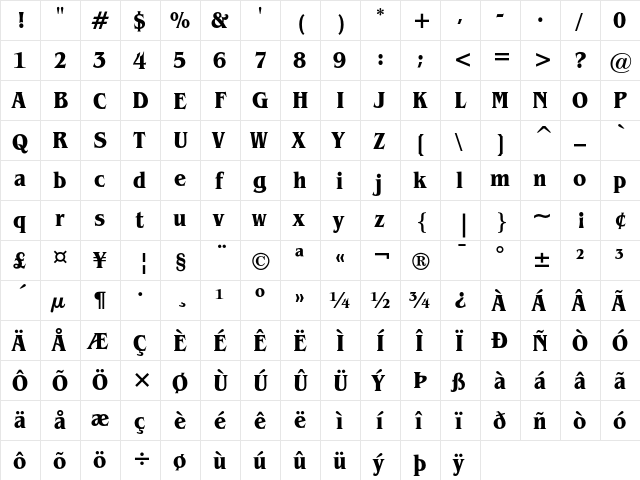
ITC Benguiat Bold Condensed
Design Context for ITC Benguiat Typeface
ITC Benguiat is a composed and adaptable typeface that performs quietly and consistently across a wide range of design contexts. The heavy weight commands attention and anchors typographic hierarchies. The condensed width makes it efficient for tight spaces without sacrificing legibility.
Pro Tip: Use ITC Benguiat in both headline and body roles to test its range before committing to a single application.